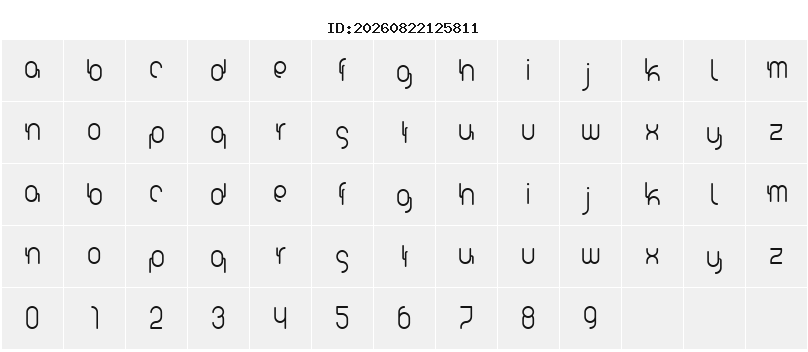
Scripio B Preview
• Font Name: Scripio B
• Font ID: AType: Scripio B: 2002
• Full Font Name: Scripio B
• Version: Version 1.00 2002
• PostScript Name: ScripioB
• Character Count: 209
• Designer: Artem Gerasimov
• Manufacturer: AType
About Scripio B.ttf
Scripio B.ttf is a modern, elegant sans-serif font designed for ultimate readability and visual harmony. Perfect for branding, headlines, web design, and print materials.